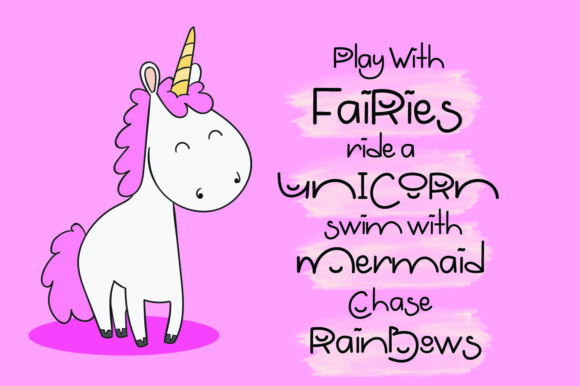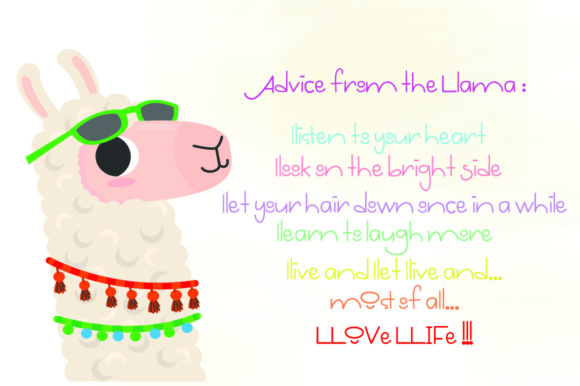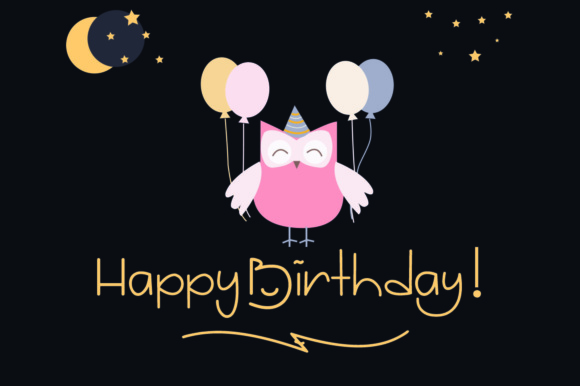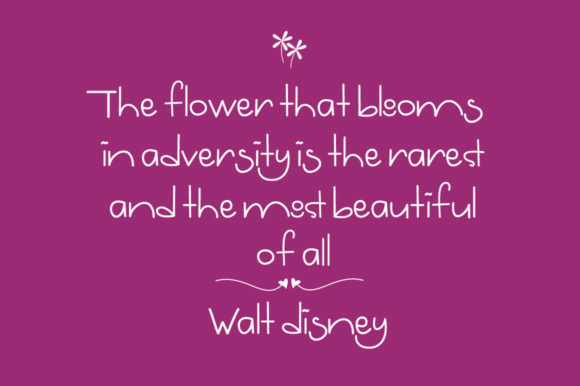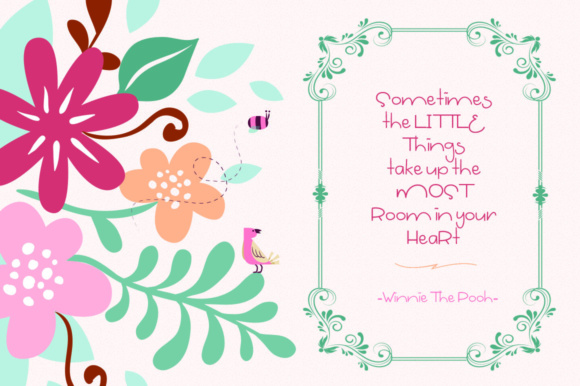
Introduction to Mister Boosty Font
Have you ever been working on a design project, and just as you’re about to add the final touches, you’re stuck on finding the perfect font to bring your idea to life? You scroll through countless options, but nothing seems to capture the playful essence you’re aiming for. That’s where the Mister Boosty Font comes in – a delightful, hand-drawn sans serif font that’s sure to put a smile on your face.
This charming font is inspired by the carefree scribbles of children, making it the perfect choice for designers looking to add a touch of whimsy and fun to their creative projects. With its high-quality design and transparent background, you can be sure that Mister Boosty Font will elevate your designs to the next level.
Whether you’re working on a t-shirt design, logo, or social media post, Mister Boosty Font is the ideal resource to add a personal touch and make your design stand out. And the best part? It’s available for free download, making it an invaluable asset for any designer looking to add some creativity and personality to their work.
Key Features of Mister Boosty Font
- The font features a transparent background, making it perfect for designs that require a clear and clean look.
- It comes in a single weight, making it easy to use in a variety of design contexts.
- Mister Boosty Font is a unique and creative solution for designers looking for a modern and stylish font.
- With its clean lines and minimalist design, it’s perfect for branding, logos, and other design elements that require a touch of sophistication.
Honest Review: Mister Boosty Font
As a designer, I’m always on the lookout for unique and high-quality design resources to enhance my creative projects. The Mister Boosty Font caught my attention with its bold and playful style. I was excited to see how it would perform in real-world applications.
Here are some pros and cons of the Mister Boosty Font:
- ✨ Great for headings and titles, with a clear and easy-to-read layout.
- ⚠️ Limited in terms of font styles and variations, which may not be ideal for complex or multi-faceted projects.
- ⚠️ May not be suitable for formal or professional applications, due to its playful and informal nature.
Overall, I’m impressed with the Mister Boosty Font and its potential for adding a creative touch to various design projects. While it may have some limitations, its unique style and high-quality design make it a valuable resource for designers looking to inject some personality into their work.
Mister Boosty Font
Mister Boosty Font is a versatile and high-quality design resource ideal for any creative project. With a transparent background, this font is perfect for designers who want to add a unique touch to their work.
Mister Boosty Font is ideal for various creative projects, including logos, brochures, posters, and social media graphics. Its high-quality design makes it perfect for any project that requires a unique and eye-catching touch.